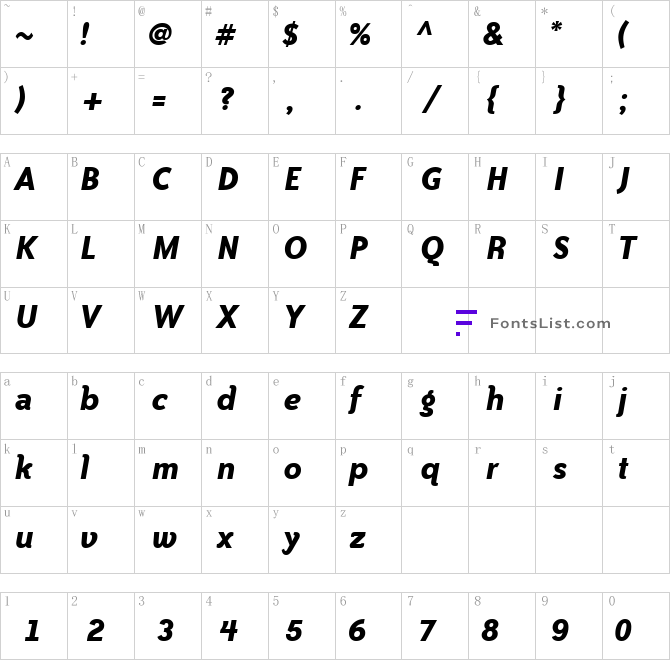
- Font Name:Bailey Sans ITC TT
Bailey-Sans-ITC-TT-BoldItalic.ttf is a very beautiful artistic font, Bailey-Sans-ITC-TT-BoldItalic.ttf is widely used in the design and printing of various books and pictures,Bailey-Sans-ITC-TT-BoldItalic.ttf has a strong visual impact,Bailey-Sans-ITC-TT-BoldItalic.ttf is a commonly used font in newspapers, magazines and books, and is used in posters, e-commerce Poster design, store design, logo design, font design and other fields.Bailey-Sans-ITC-TT-BoldItalic.